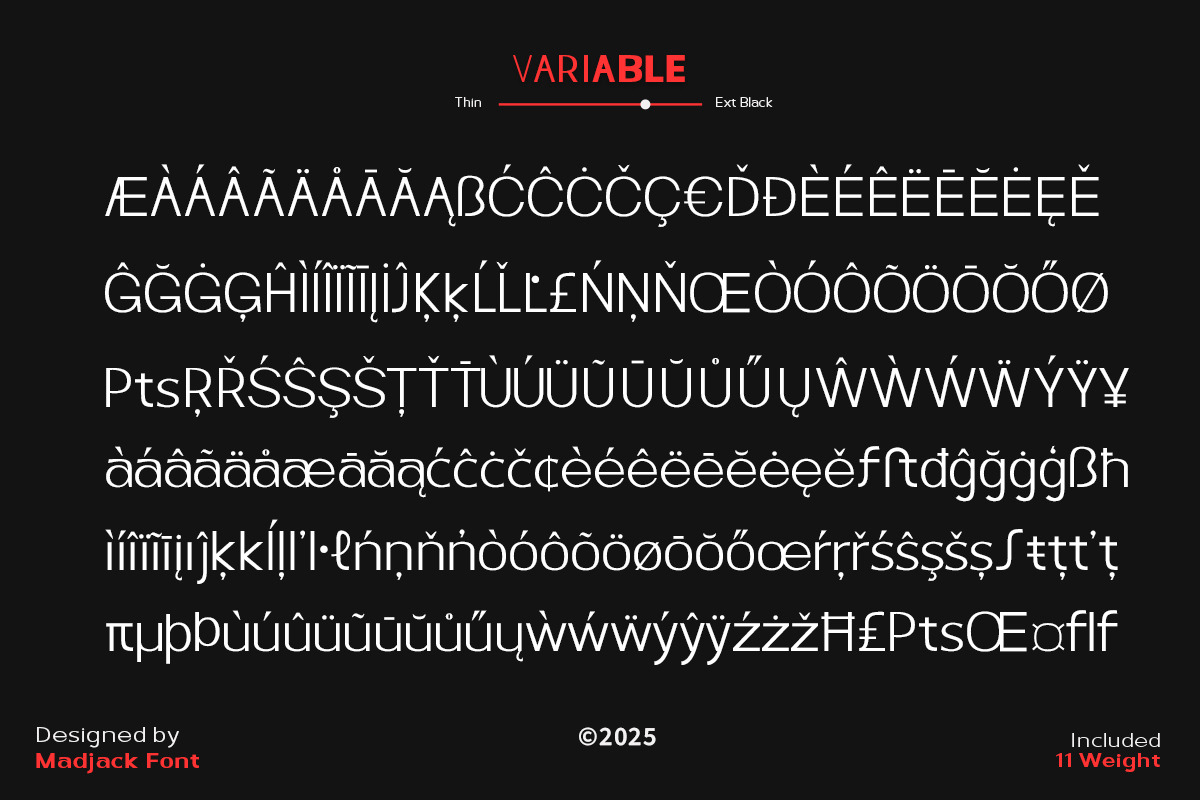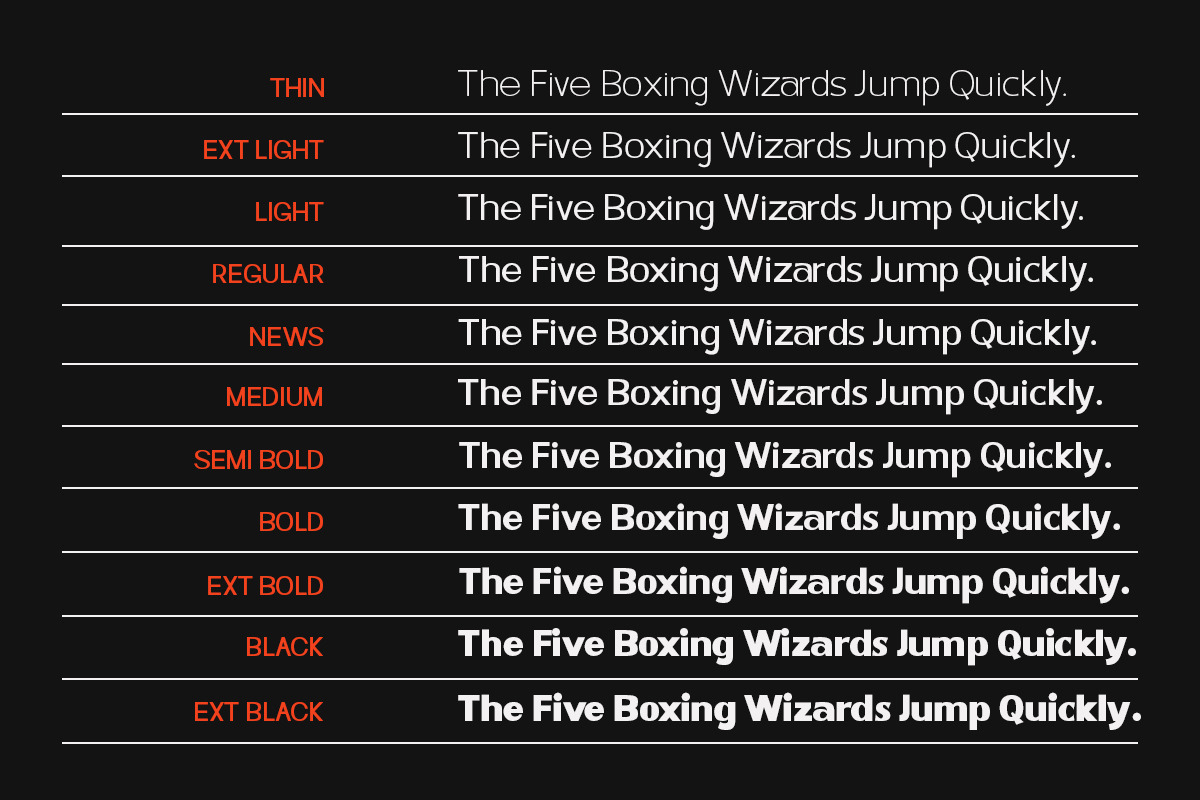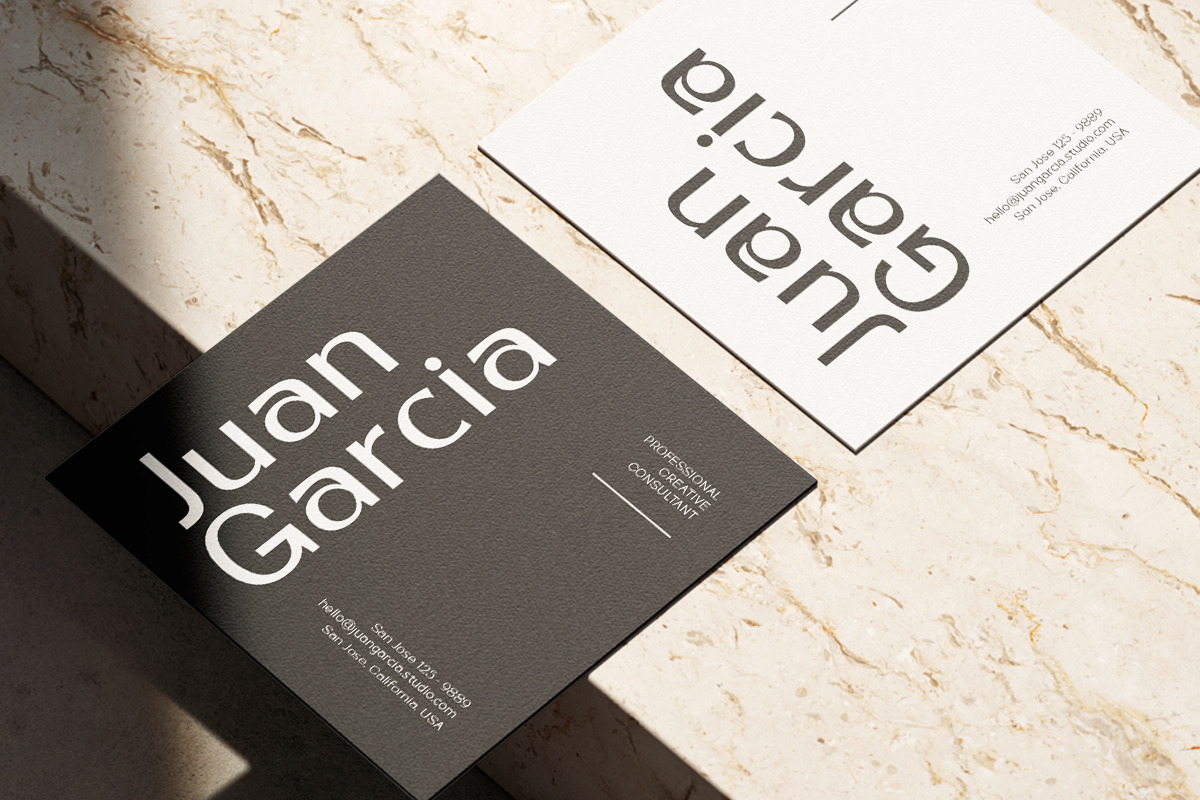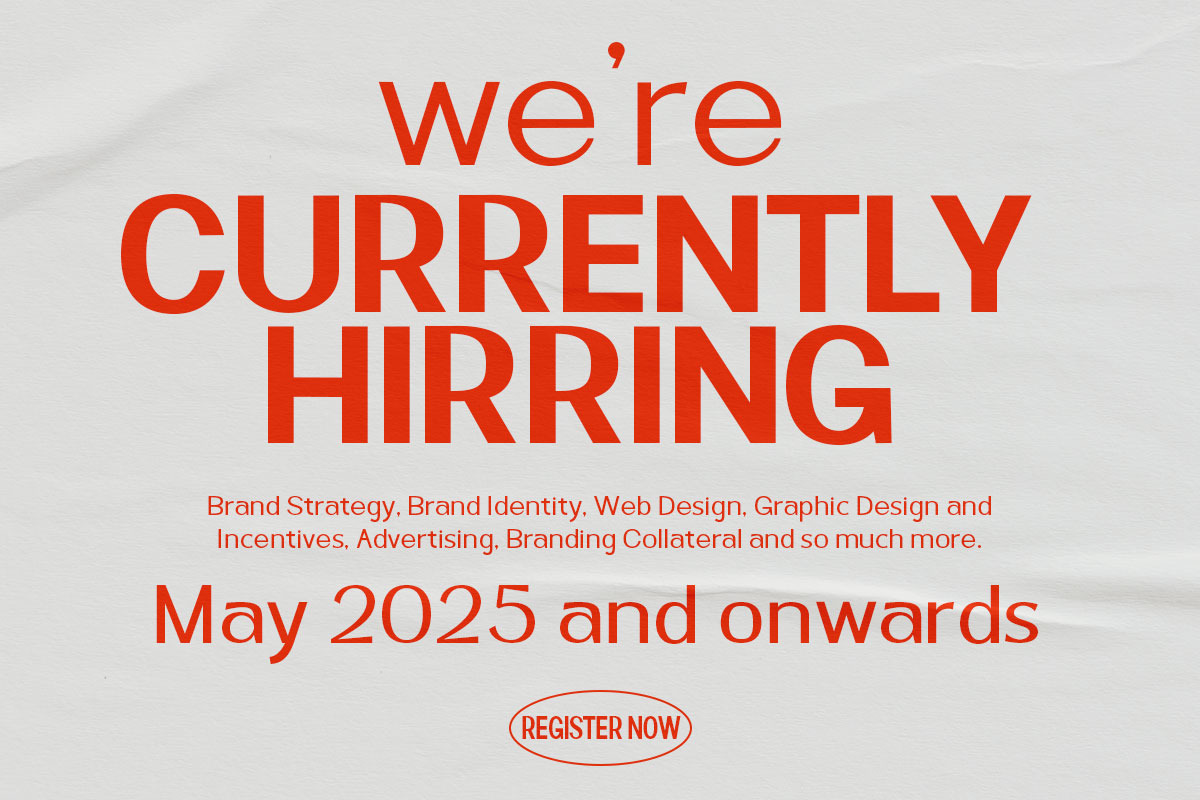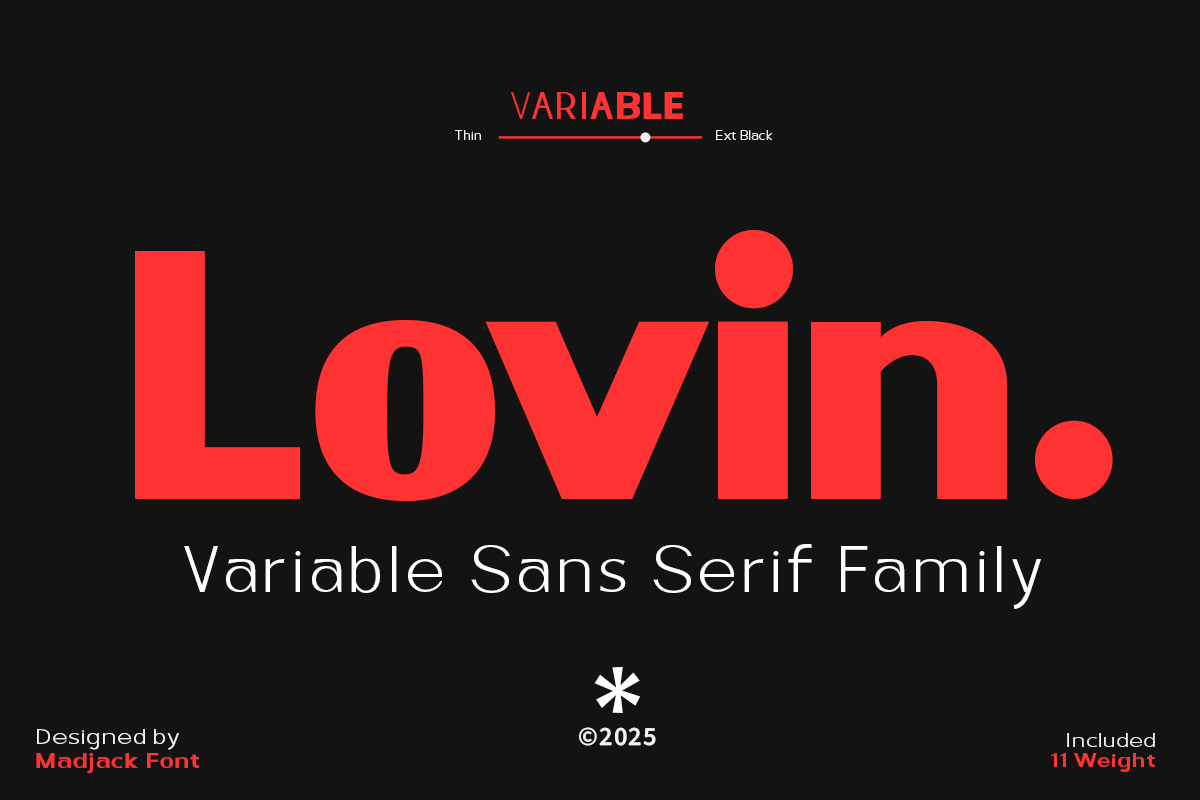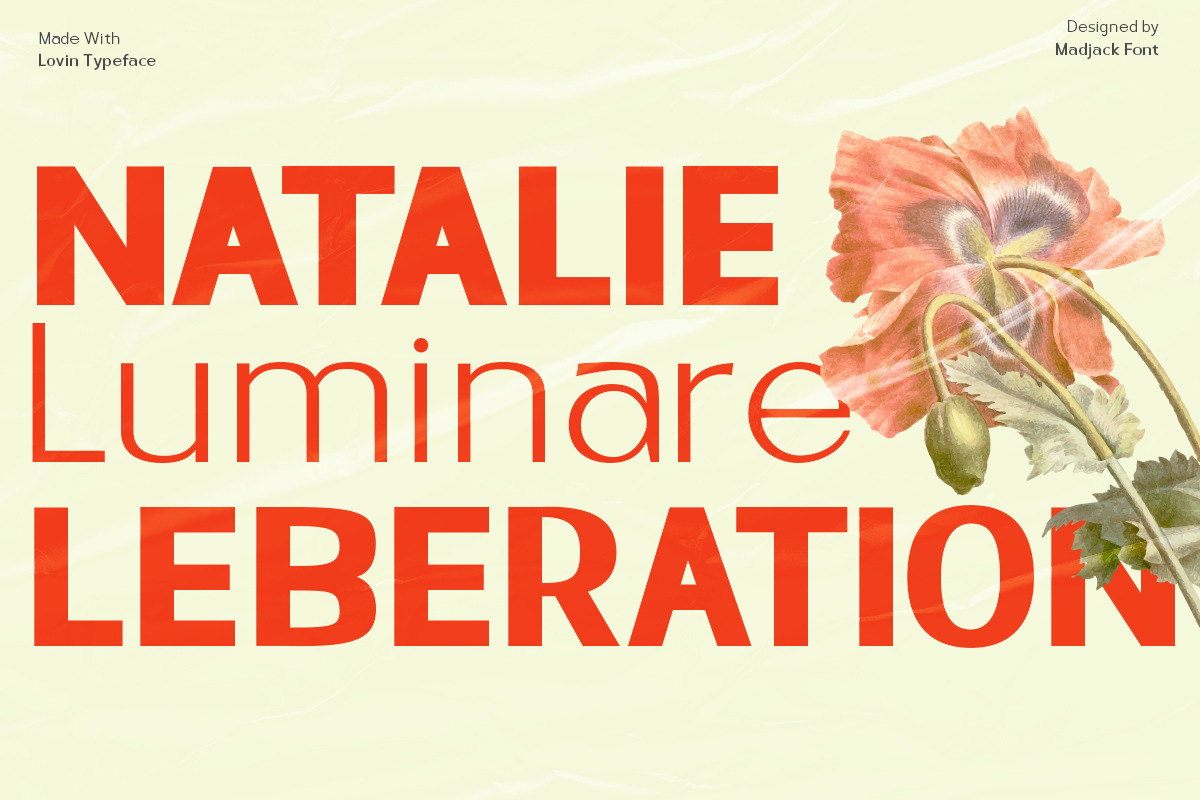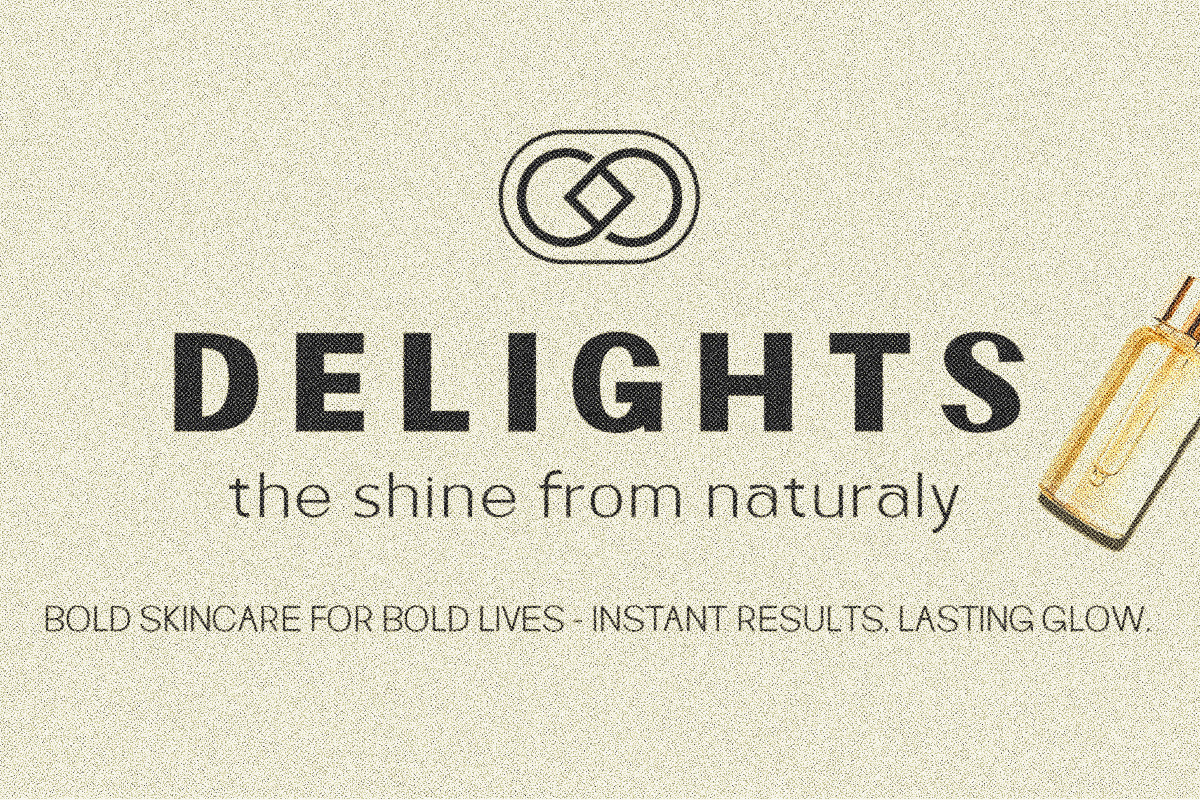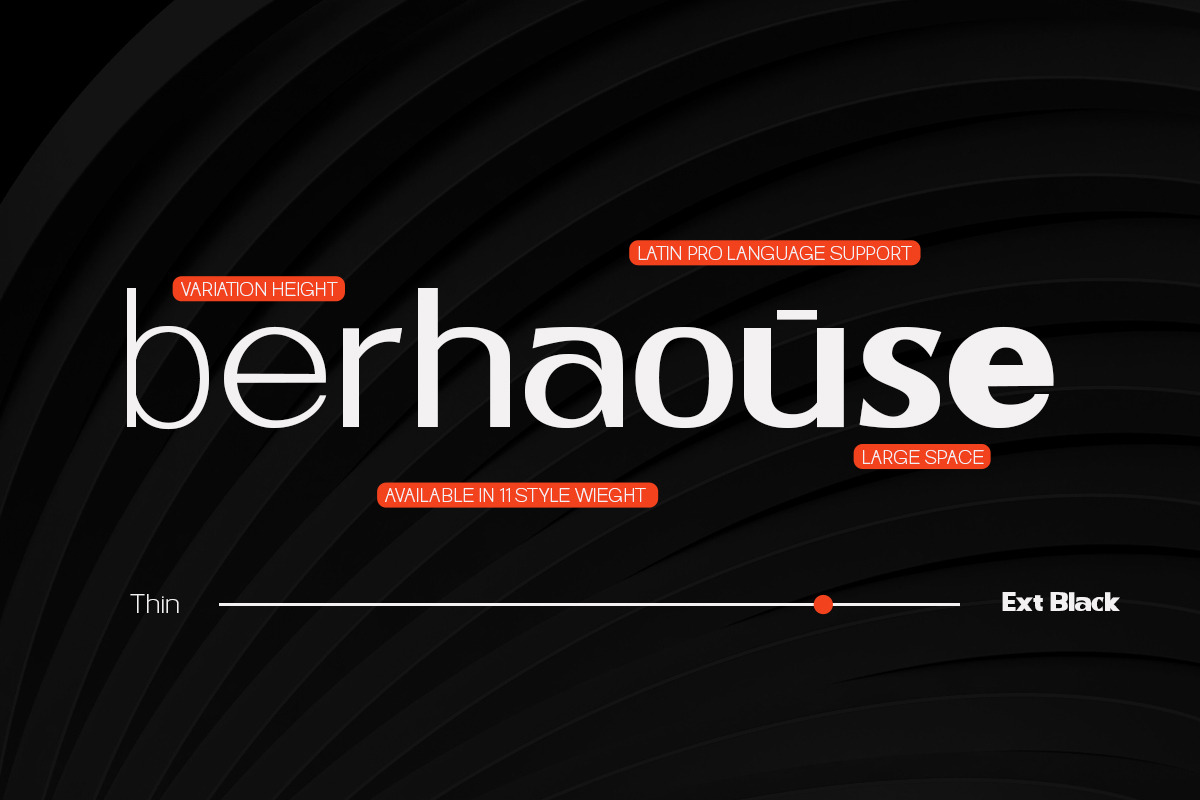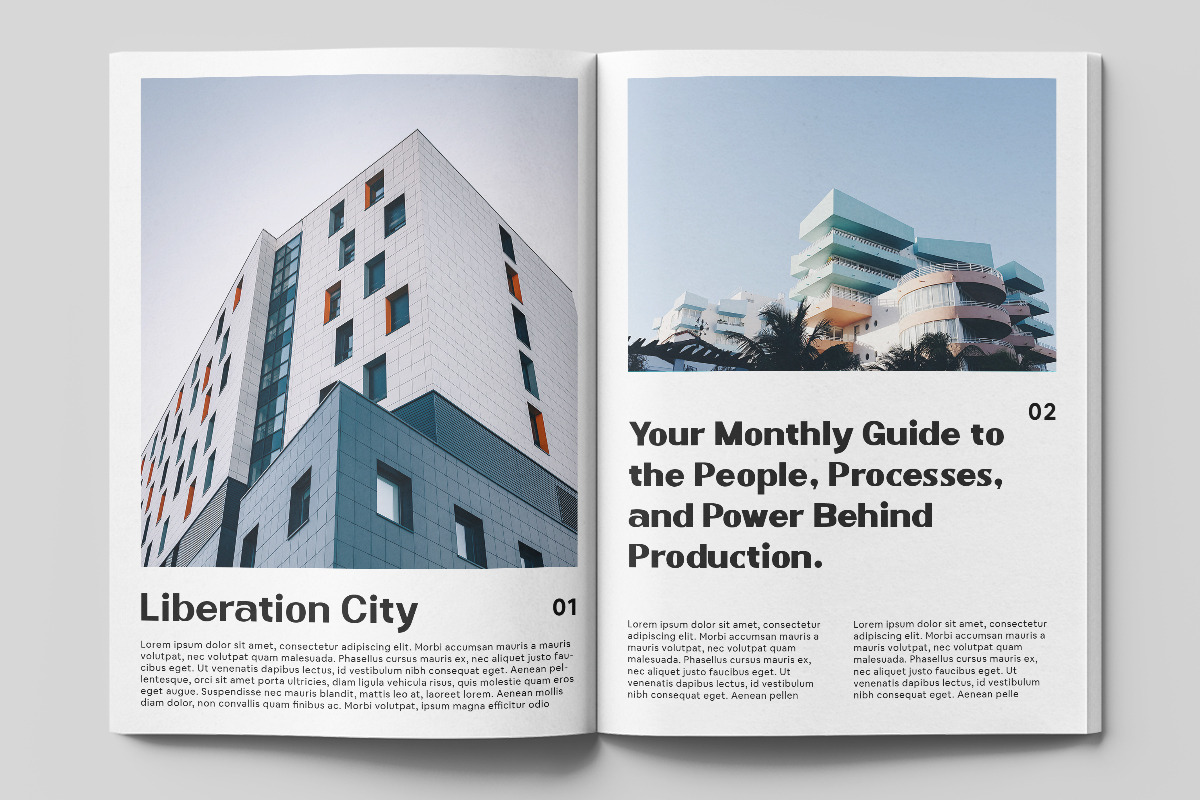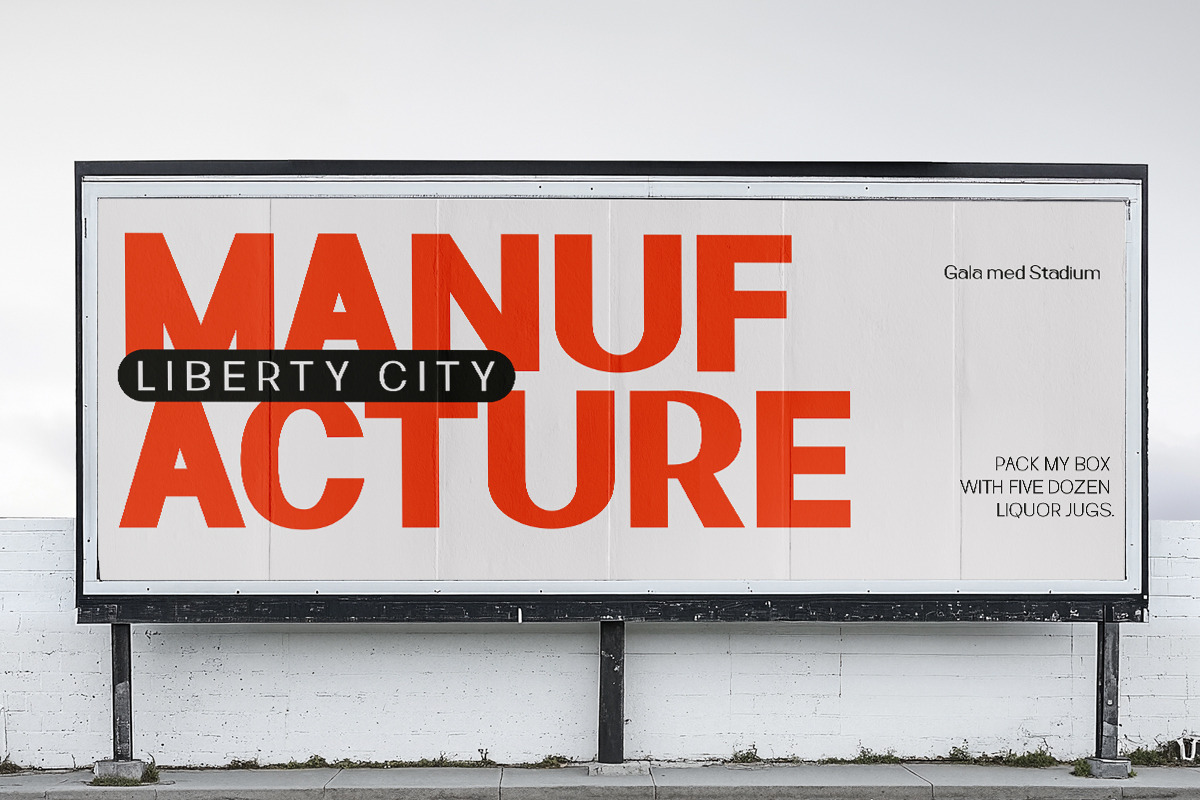
Lovin
Lovin is a bold, modern, high-contrast sans serif typeface that balances visual appeal with restraint. Perfectly designed, Lovin has highly angular tips and elongated edges that give it a sense of elegance and dynamic rhythm, making it a great choice for fashion, beauty, or luxury brands and typography. Its generous height and rounded shape ensure flexibility and readability in a variety of applications, such as headlines, signage, and display settings on websites.
Lovin is a truly versatile 11-style font family that is ready for any project.